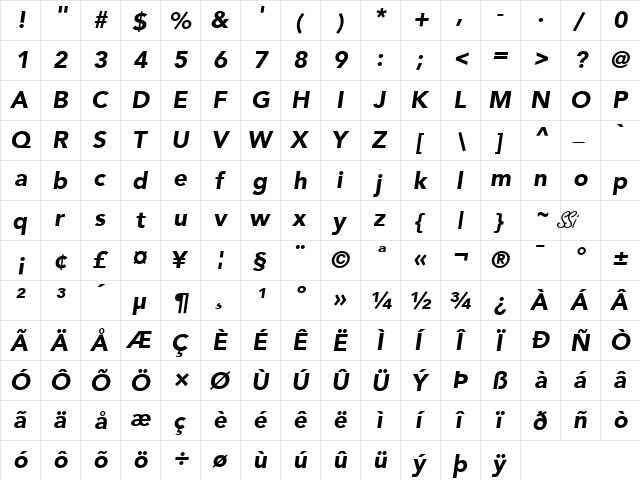
Expo Black SSi Black Italic
Design Context for Expo Black SSi Typeface
Expo Black SSi takes a measured approach to typography — its balanced proportions and neutral character make it a reliable workhorse for both digital and print work. The dynamic lean of this cut emphasises speed and emphasis in any layout.
Pro Tip: Use Expo Black SSi for emphasis, pull quotes, and subheadings where its slanted energy can add rhythm to the layout.